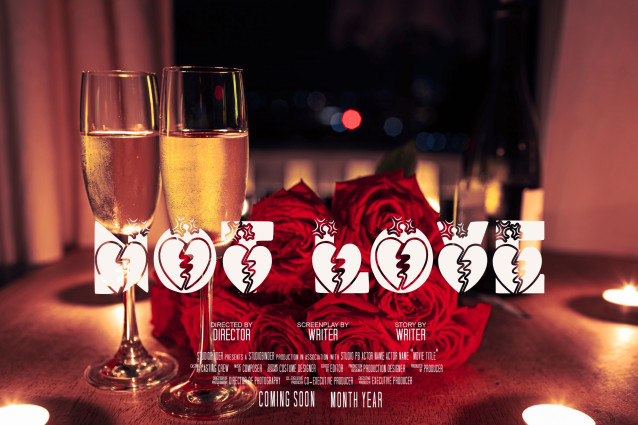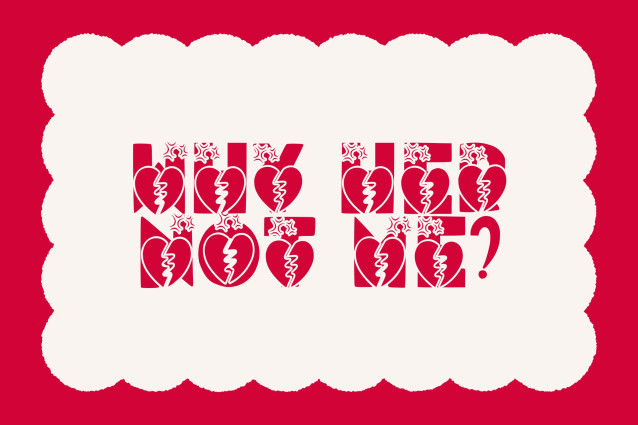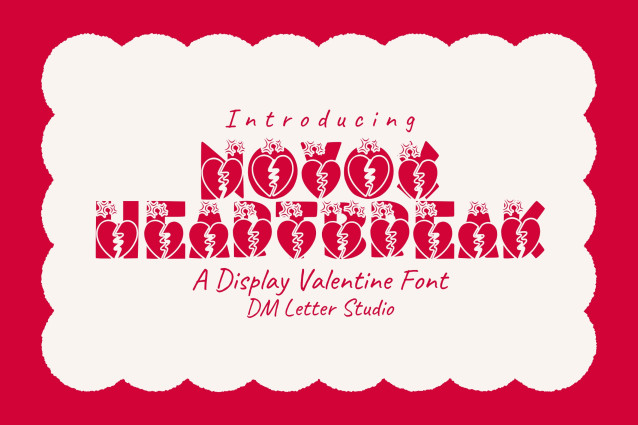
Novox Heartbreak Font
Novox Heartbreak Font is a dramatic and expressive display font with jagged edges and an emotional flair, perfect for projects that need attitude and intensity. With a raw, handcrafted look, it captures the essence of heartbreak, rebellion, and edgy creativity. This font is ideal for band posters, album covers, anti-Valentine’s Day cards, urban streetwear branding, and grunge-themed digital art.